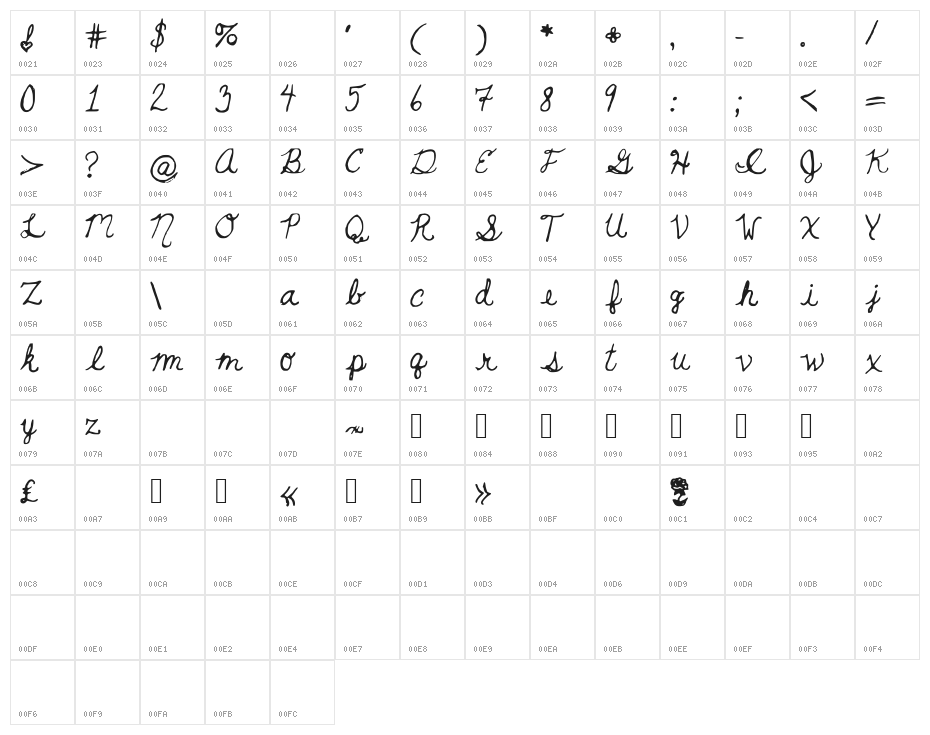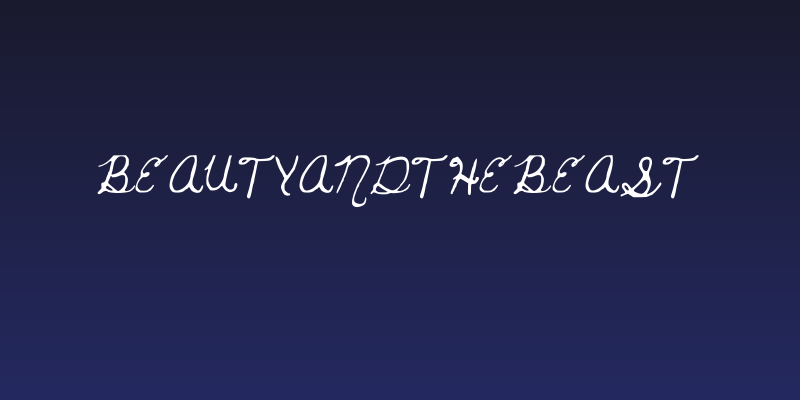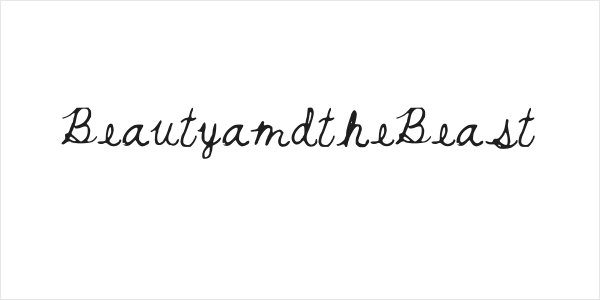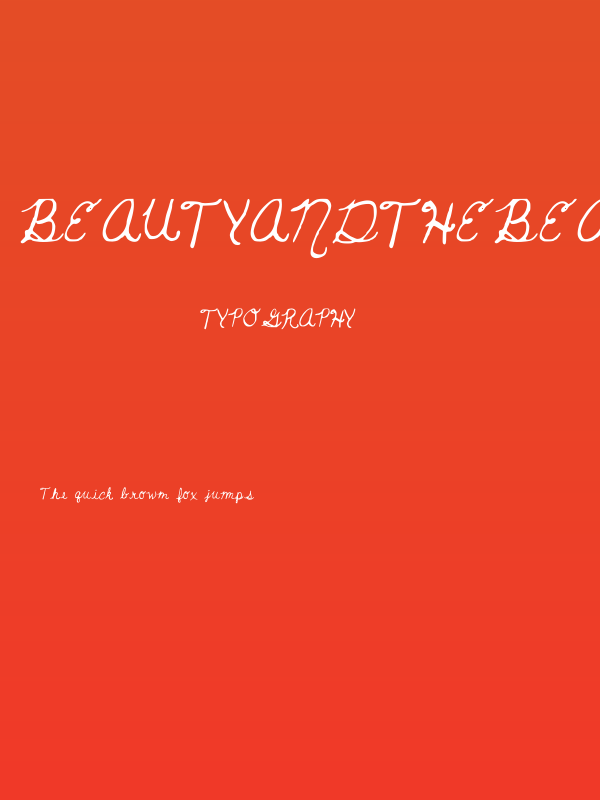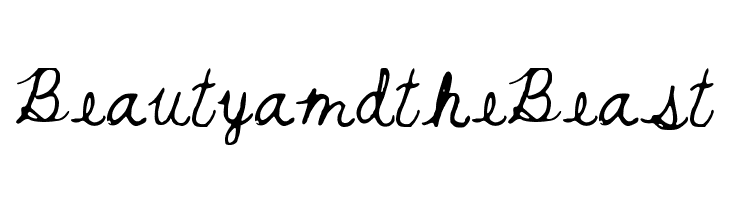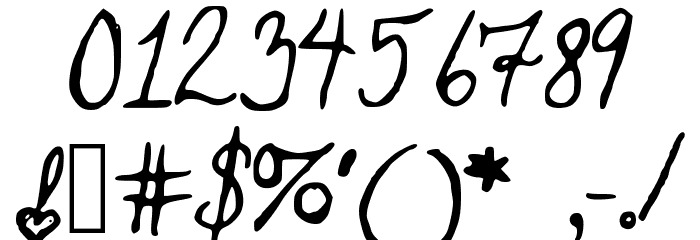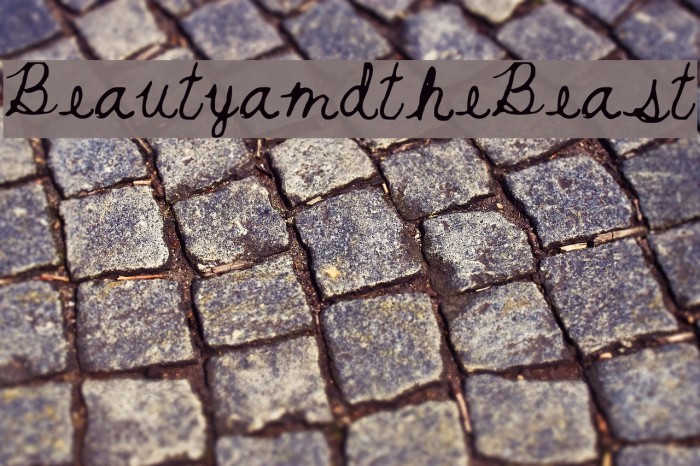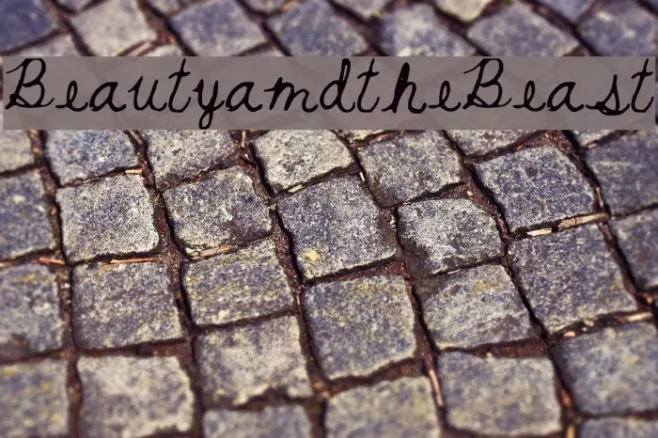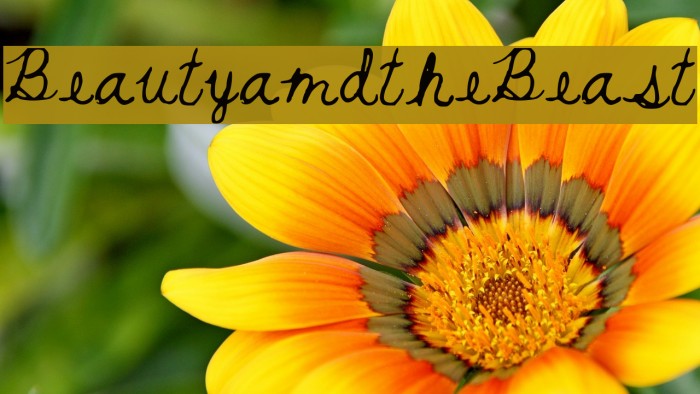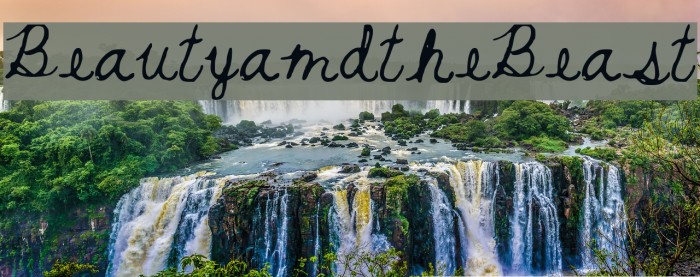
BeautyandtheBeast Font
BeautyandtheBeast Description
This font features a whimsical and flowing script style, reminiscent of handwritten calligraphy. The characters are elegantly connected, with a playful and artistic flair that adds a touch of romance and fantasy. The uppercase letters are slightly more embellished, while the lowercase letters maintain a consistent fluidity. The numerals and special characters complement the overall design, maintaining the same handwritten aesthetic. This font exudes a sense of charm and creativity, making it suitable for projects that require a personal and artistic touch.